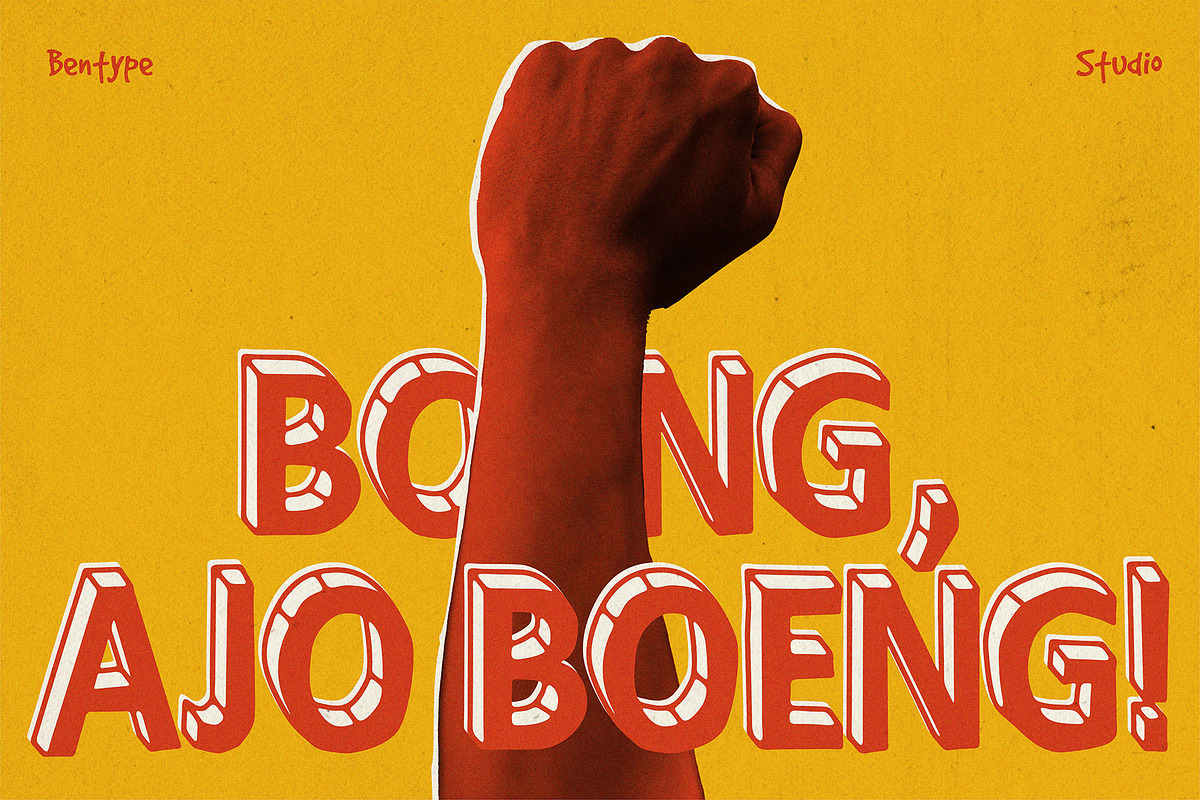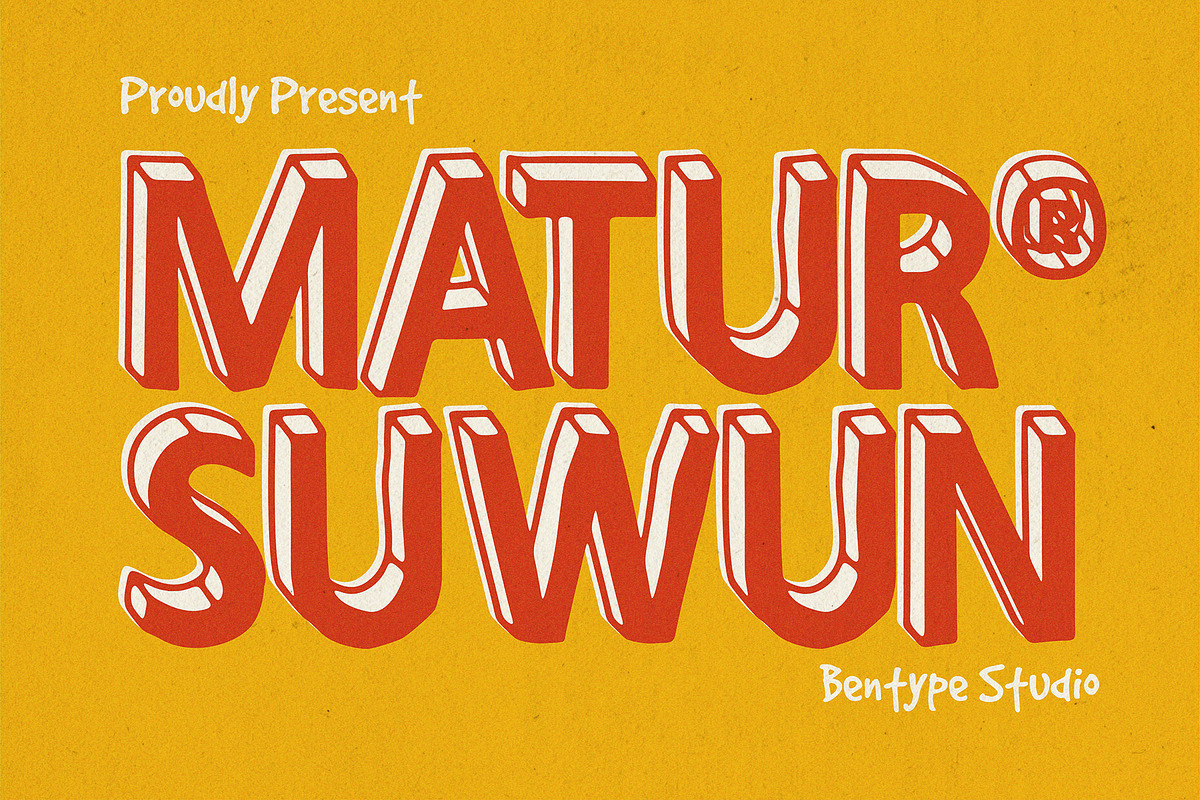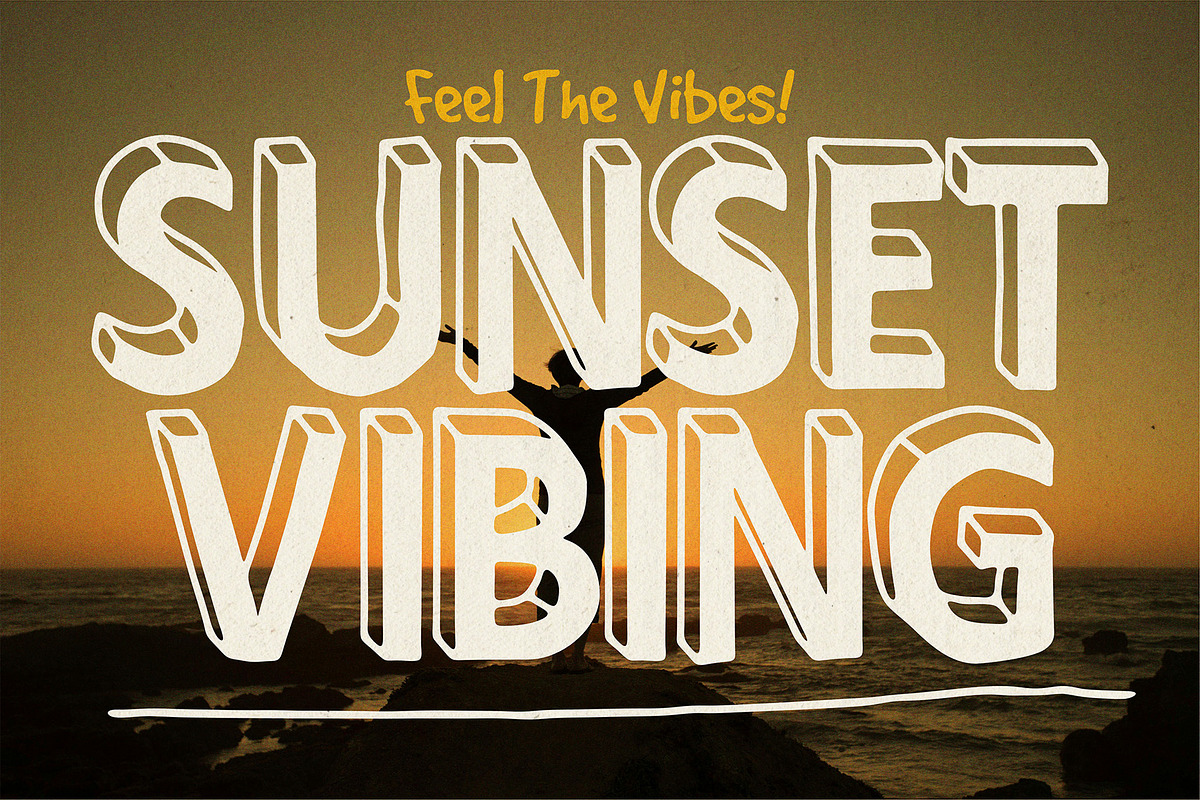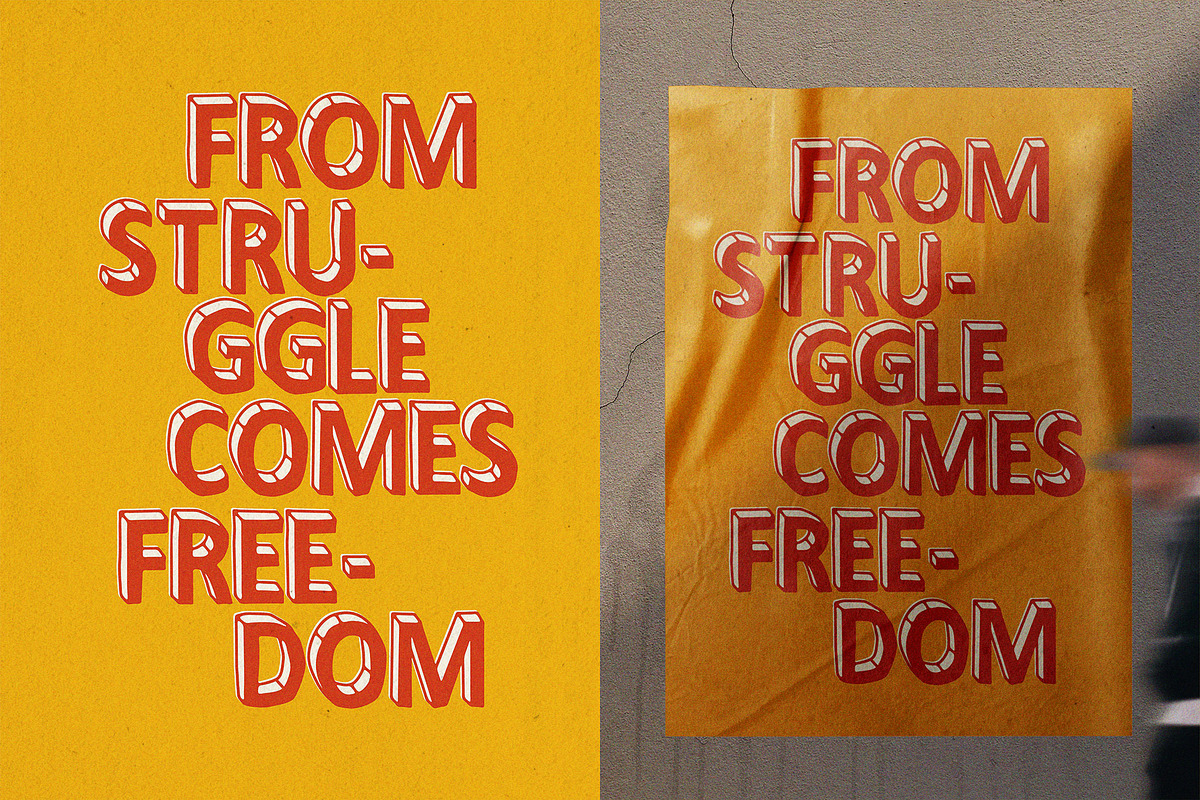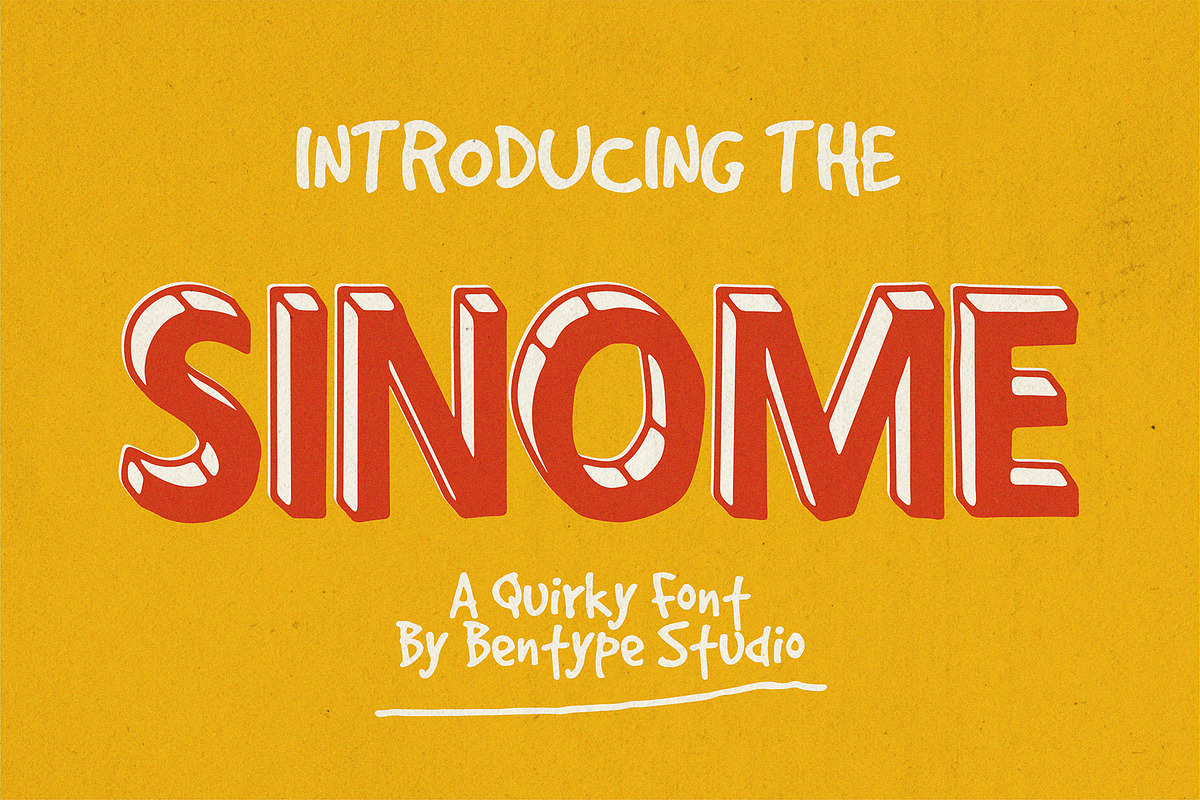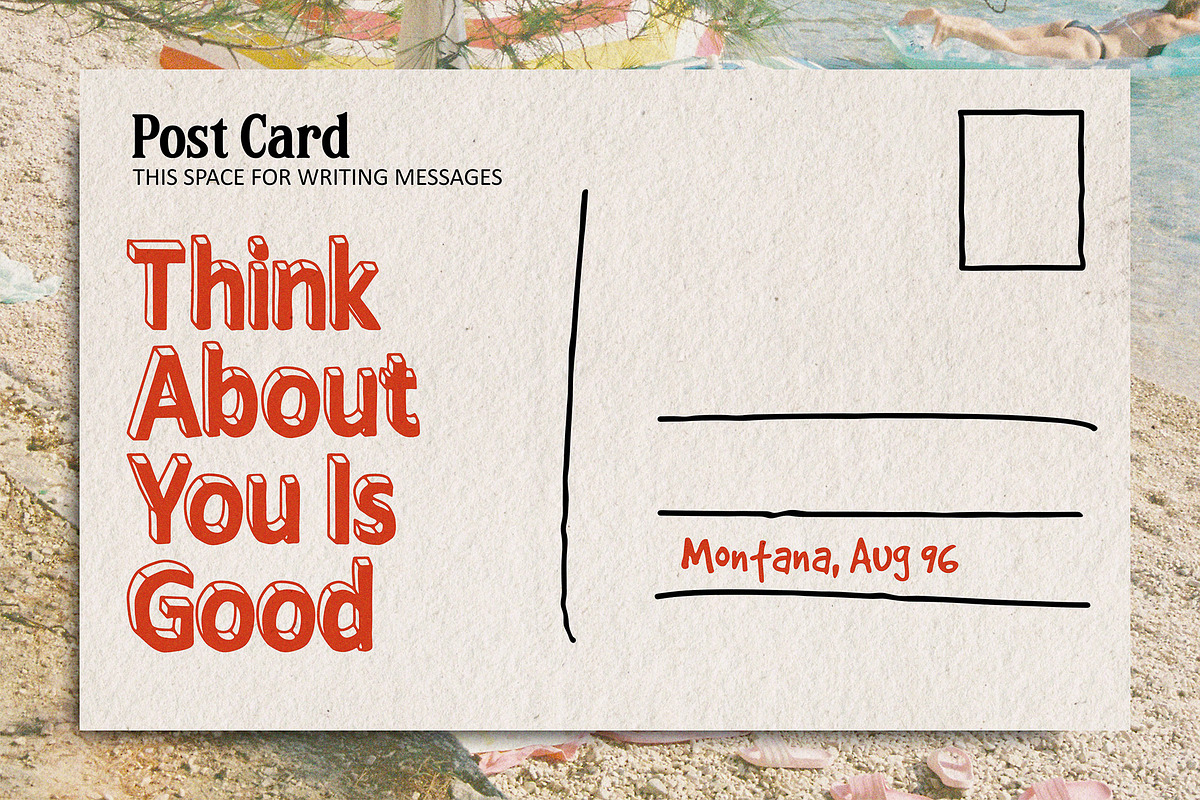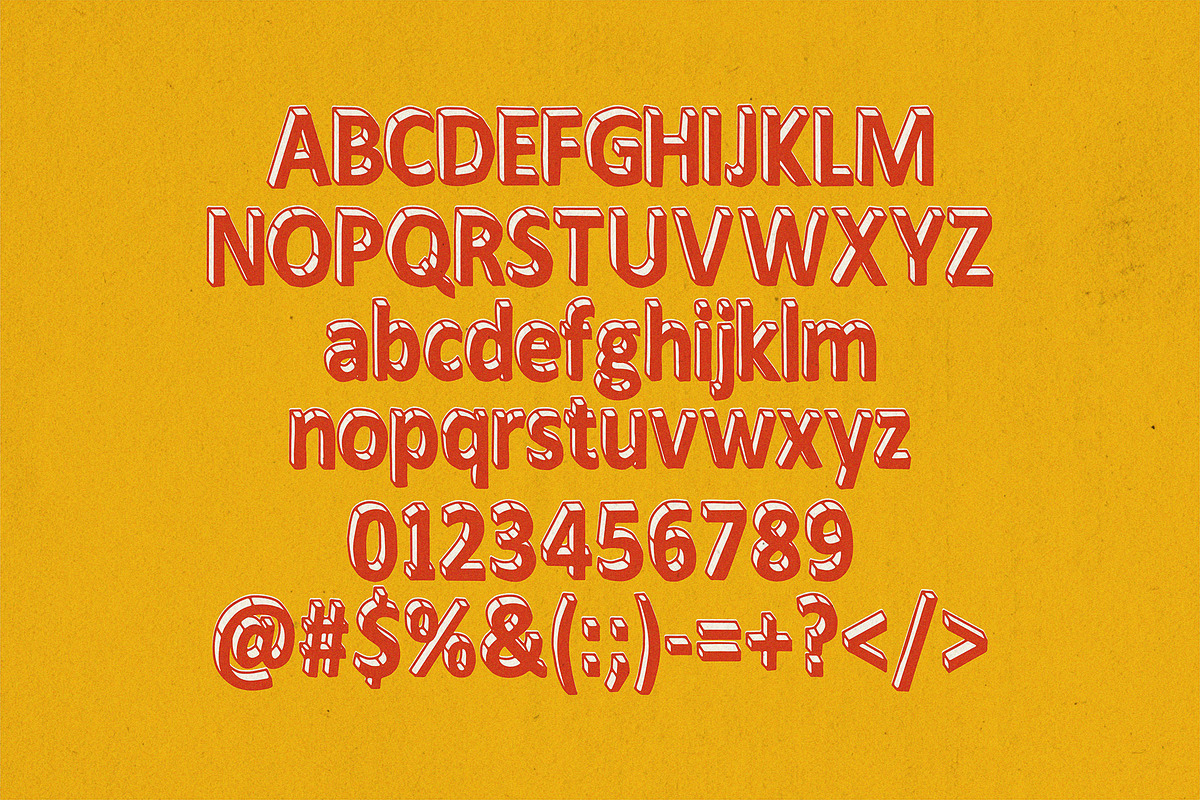
Sinome - Quirky Retro Display Font
SINOME — A Quirky Retro Display Font
Bring bold personality and playful energy to your designs with SINOME, a quirky display font inspired by vintage sign lettering and hand-drawn typography.
Featuring chunky letterforms, irregular shapes, dimensional shadow details, and unique hand-drawn highlights, SINOME creates a fun retro look while keeping your typography bold and eye-catching.
Perfect for posters, logos, packaging, apparel, stickers, labels, album covers, branding, social media graphics, headlines, and retro-inspired designs.
With uppercase and lowercase characters, numbers, punctuation, and a distinctive decorative style, SINOME is made to help your designs stand out.
SINOME — Bold, quirky, playful, and unapologetically retro.